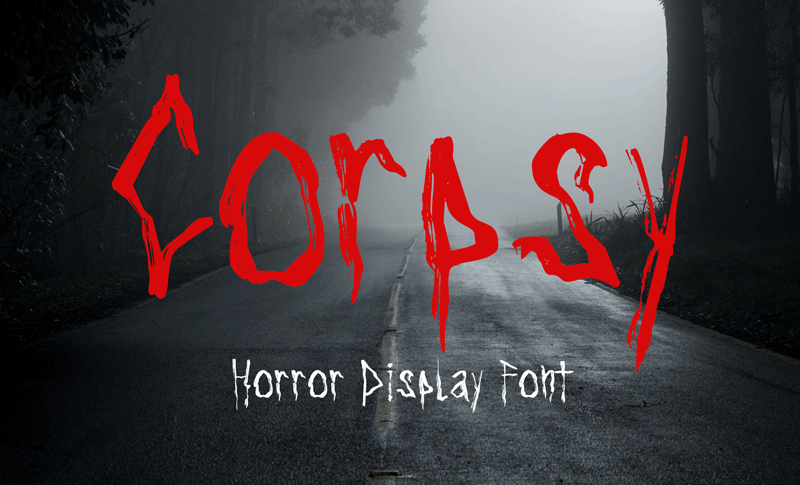
Preview and download Corpsy Font. Created by Mohamad Farhan Ramadhan in Fancy Horror styles with Free for personal use license.
Introducing Corpsy � the perfect font for all things horror! With its unique droplet touch, this font screams Halloween, nightmare, horror, and creepiness. Its trash style adds a gritty edge that is sure to make your designs stand out. Corpsy is great for posters, t-shirts, art crafts, unique headlines, logotypes, and many more. Don�t settle for ordinary fonts � choose Corpsy to give your designs a spooky and unforgettable twist! By installing or using this font, you are agree to the Product Usage Agreement: - This font is already FULL VERSION and ONLY for PERSONAL USE. NO COMMERCIAL USE ALLOWED! - Here is the link to purchase COMMERCIAL LICENSE: https://crmrkt.com/mlgxvz - If you need a CUSTOM LICENSE or CORPORATE LICENSE please contact us at: mofr24.artwork@gmail.com - Any donation are very appreciated. Our Paypal account for donation : https://paypal.me/avieora Please visit our store for more amazing fonts : https://www.creativefabrica.com/ref/401336/ https://fontbundles.net/mofr24-work https://creativemarket.com/MohamadFarhanRamadha |